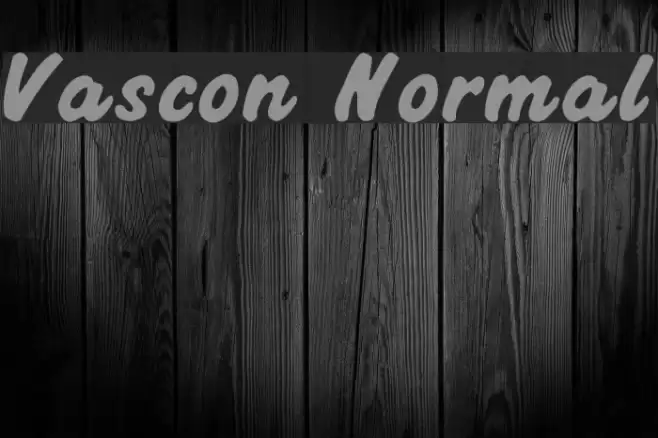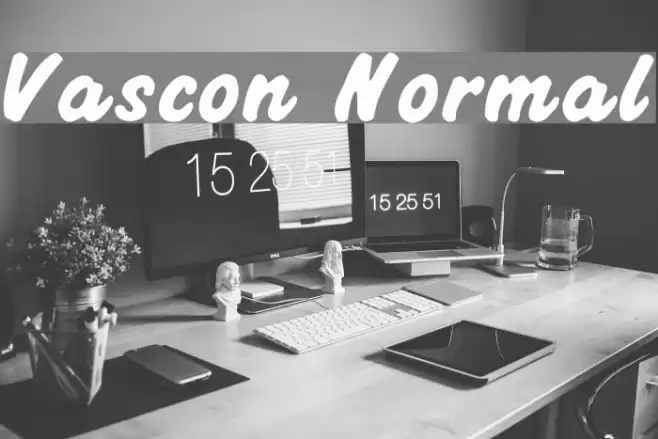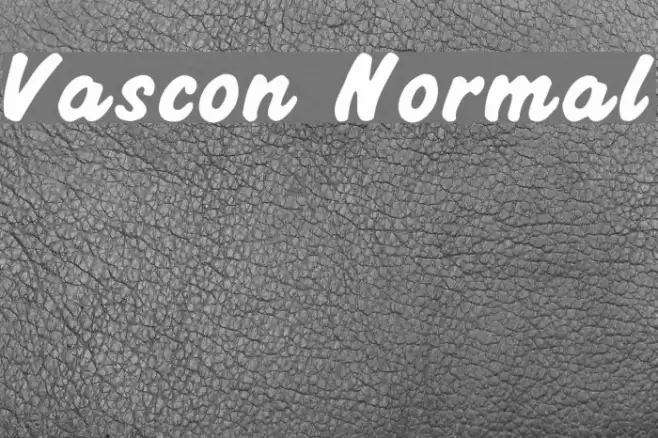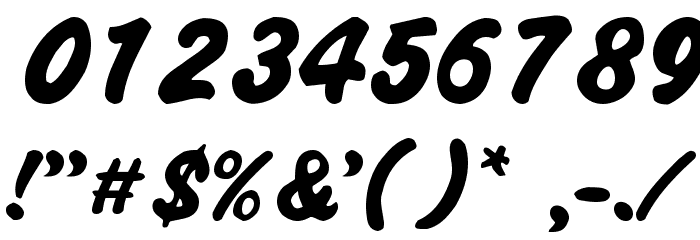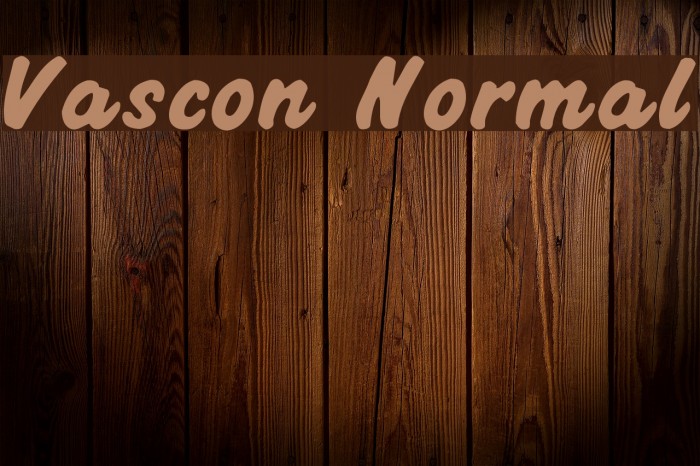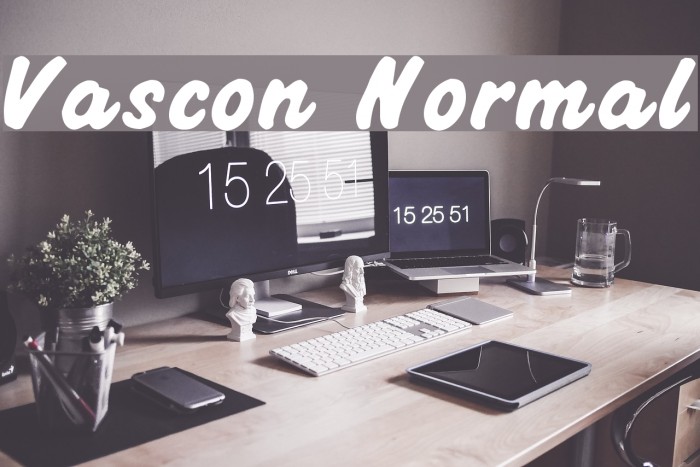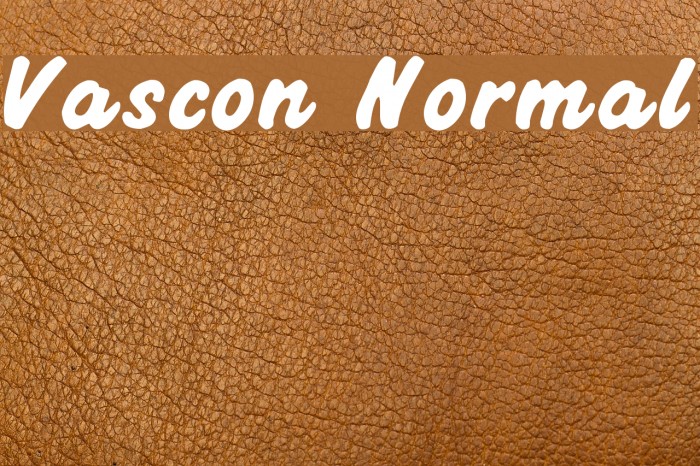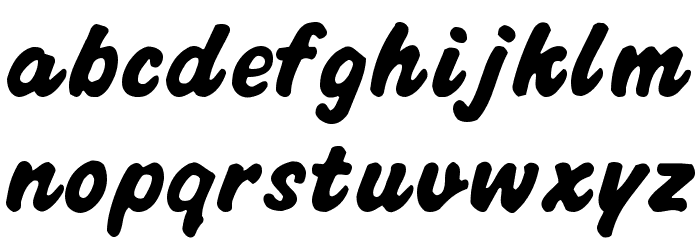
Vascon Normal Font
Vascon Normal Description
This font features a bold and playful script style with a handwritten feel. The characters are rounded and slightly slanted, giving a sense of movement and fluidity. The uppercase letters are bold and prominent, while the lowercase letters maintain a consistent flow with smooth curves. The numbers are equally bold, maintaining the playful aesthetic. Special characters are well-integrated, matching the overall style. This font's design is both approachable and dynamic, making it suitable for a variety of creative applications.
A bold, playful script font with a handwritten feel.
- Proposed Projects: Ideal for branding, invitations, greeting cards, and playful advertising.
- Category: Script
- Overall Style: Playful, Handwritten
- Use Case: Logos, Headlines, Invitations